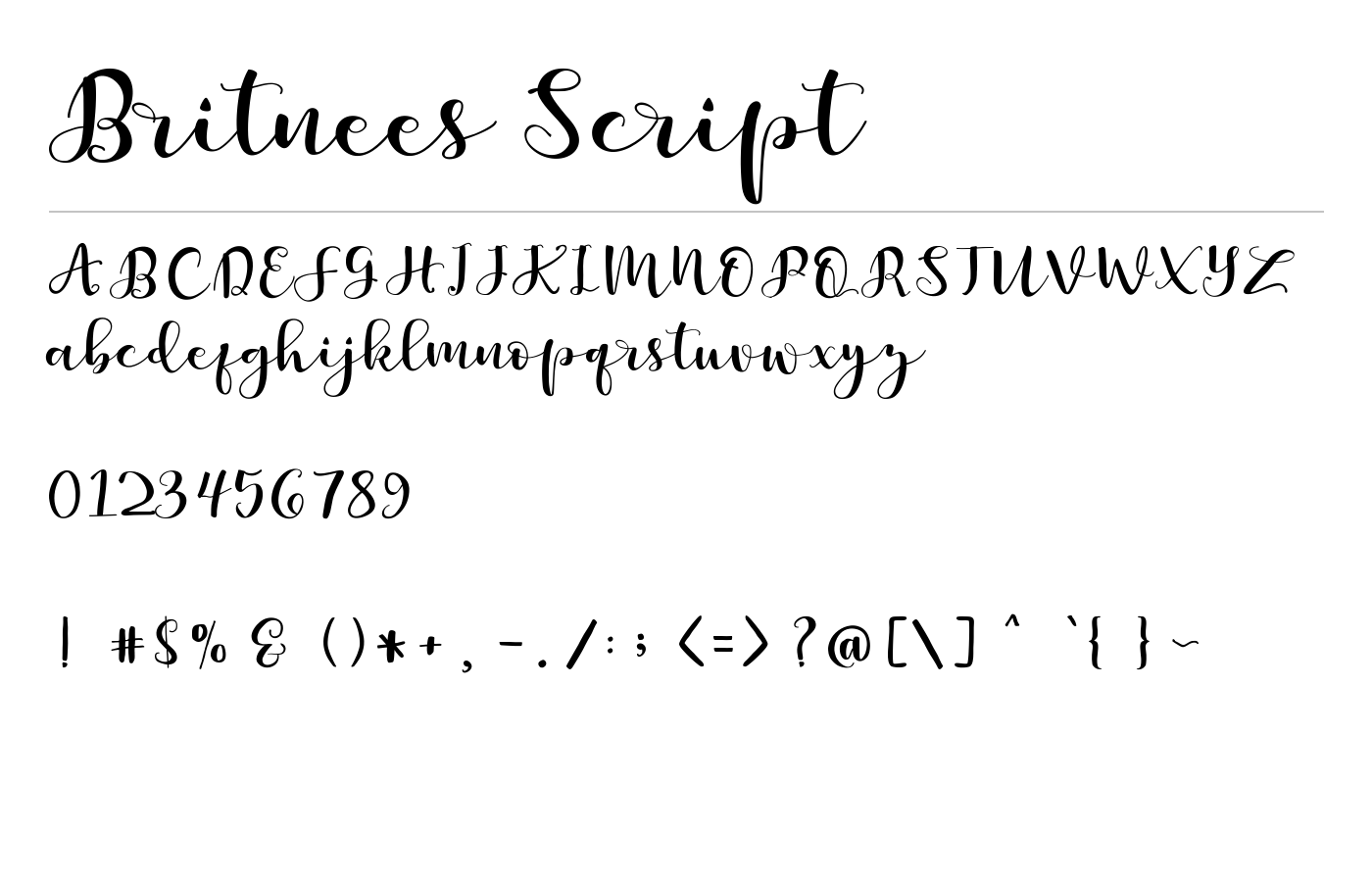
Britnees Script is an elegant and playful handwritten font featuring smooth, flowing strokes with varying thickness that add a lively, personal touch. Its delicate yet confident curves make it perfect for invitations, branding, and stylish headlines where a friendly and charming feel is desired. This font works wonderfully in creative projects that need a warm, approachable look without sacrificing sophistication.
Britnees Script Font
About Britnees Script Font
| Font family | Britnees Script Font |